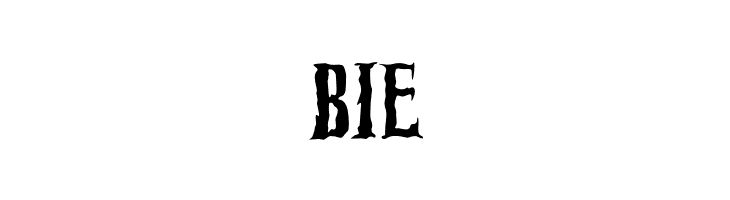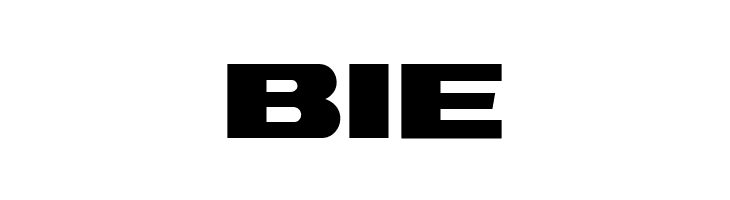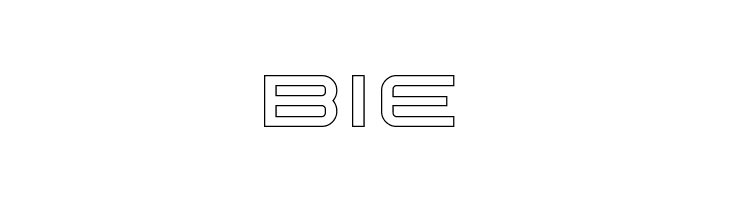
A futuristic, hollow, geometric font with sharp angles and clean lines.
A playful and expressive handwritten font with dynamic letterforms.
A bold, modern font with thick, uniform strokes and a strong presence.
An elegant script font with flowing, cursive letterforms and intricate swashes.
A graceful and ornate script font with elegant swashes and high contrast.
A bold, playful font with thick, rounded strokes and a whimsical design.
A bold, expressive script font with fluid, interconnected strokes.
A lively, handwritten font with playful and dynamic character.
A lively handwritten font with dynamic strokes and a playful yet elegant style.
A spooky, jagged font with a distressed, eerie appearance.